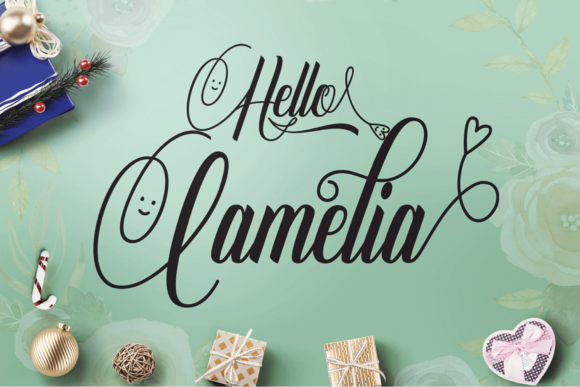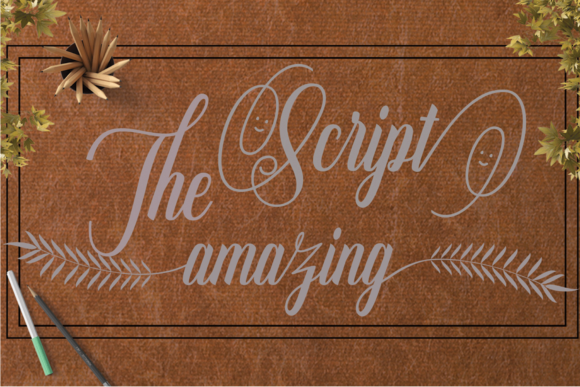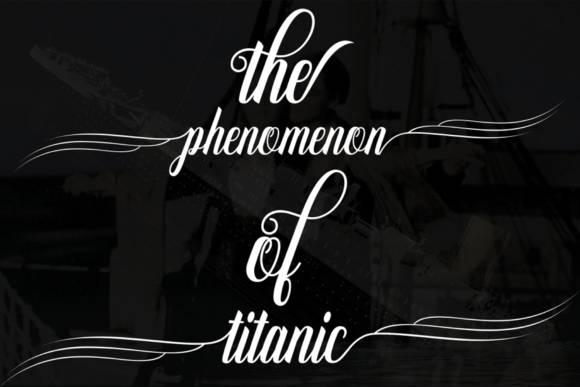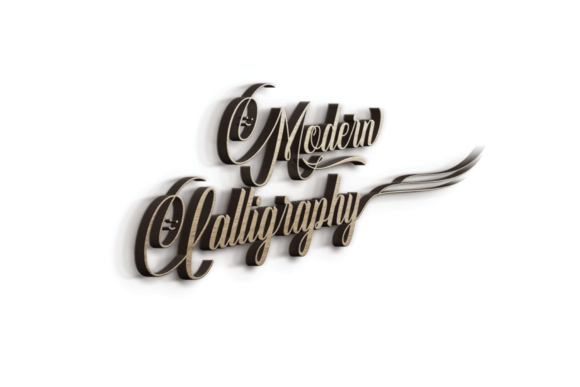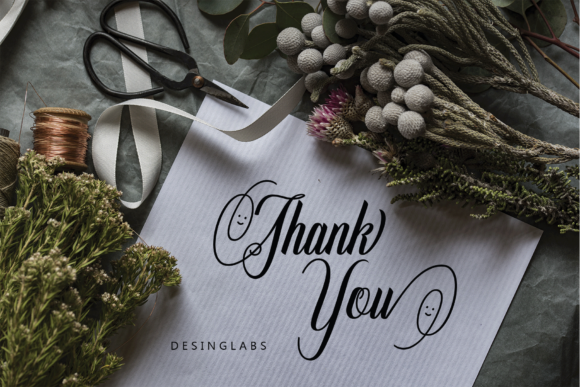
Aulita Font
About Aulita Font
Aulita is a fun yet romantically inclined font, ideal for use in a ton of different project types! This font has swashes that have cute hearts and happy faces, so you can craft projects that don’t have a look that takes itself too seriously.